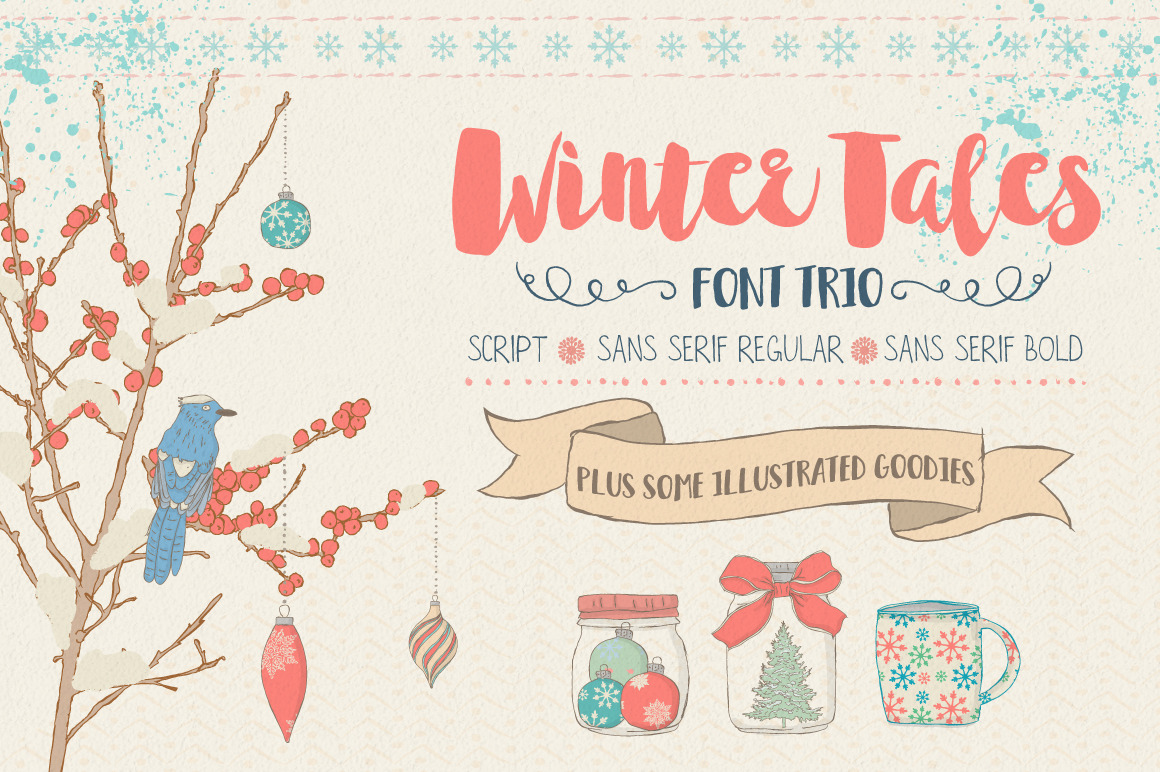
Winter Tales Font Trio + extras
Introducing my new cozy font family "Winter Tales"
This trio has script version, sans serif regular and sans serif bold. It will be a lots of pleasure to create your designs with these three guys. Very suitable for greeting cards, branding materials, business cards, quotes, posters, and more! For even more fun there are lots of hand drawn vector illustrations, seamless patterns, swirls and textures included.
Script font - hand painted calligraphy with brush pen organic typeface
Sans Serif Regular - hand written uppercase typeface with a fun "dancing" nature
Sans Serif Bold - hand written uppercase typeface